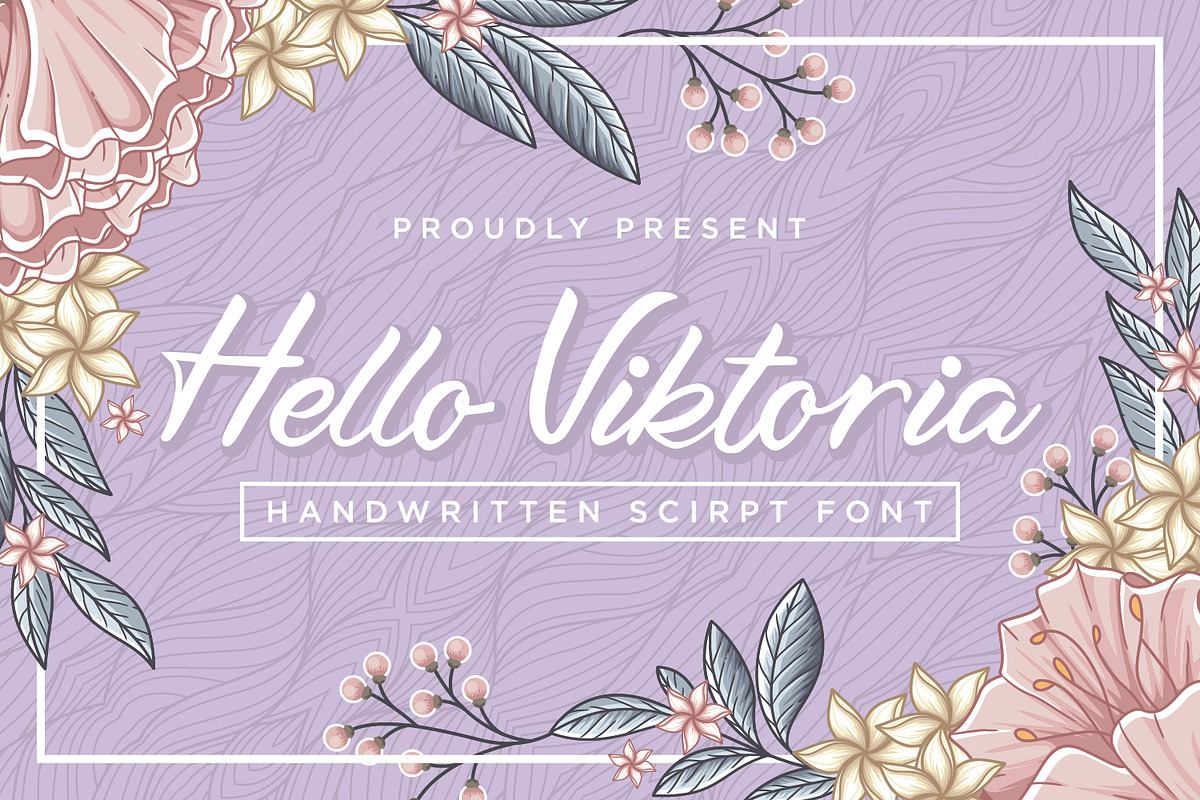
Hello Viktoria – Handwritten Script Font Free Download is a chic and feminine typeface with a natural, flowing handwritten style. With its smooth curves, elegant loops, and stylish ligatures, Hello Viktoria is perfect for wedding invitations, signature logos, branding, lifestyle blogs, Instagram posts, and modern stationery.
This font captures the charm of personal handwriting, adding warmth and sophistication to both digital and print projects. Its versatility makes it ideal for everything from romantic designs to high-end branding.